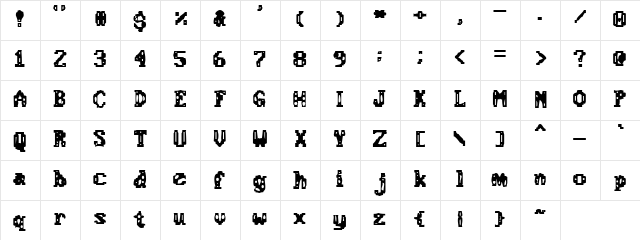
Black Box Regular
Design Context for Black Box Typeface
Black Box takes a measured approach to typography — its balanced proportions and neutral character make it a reliable workhorse for both digital and print work.